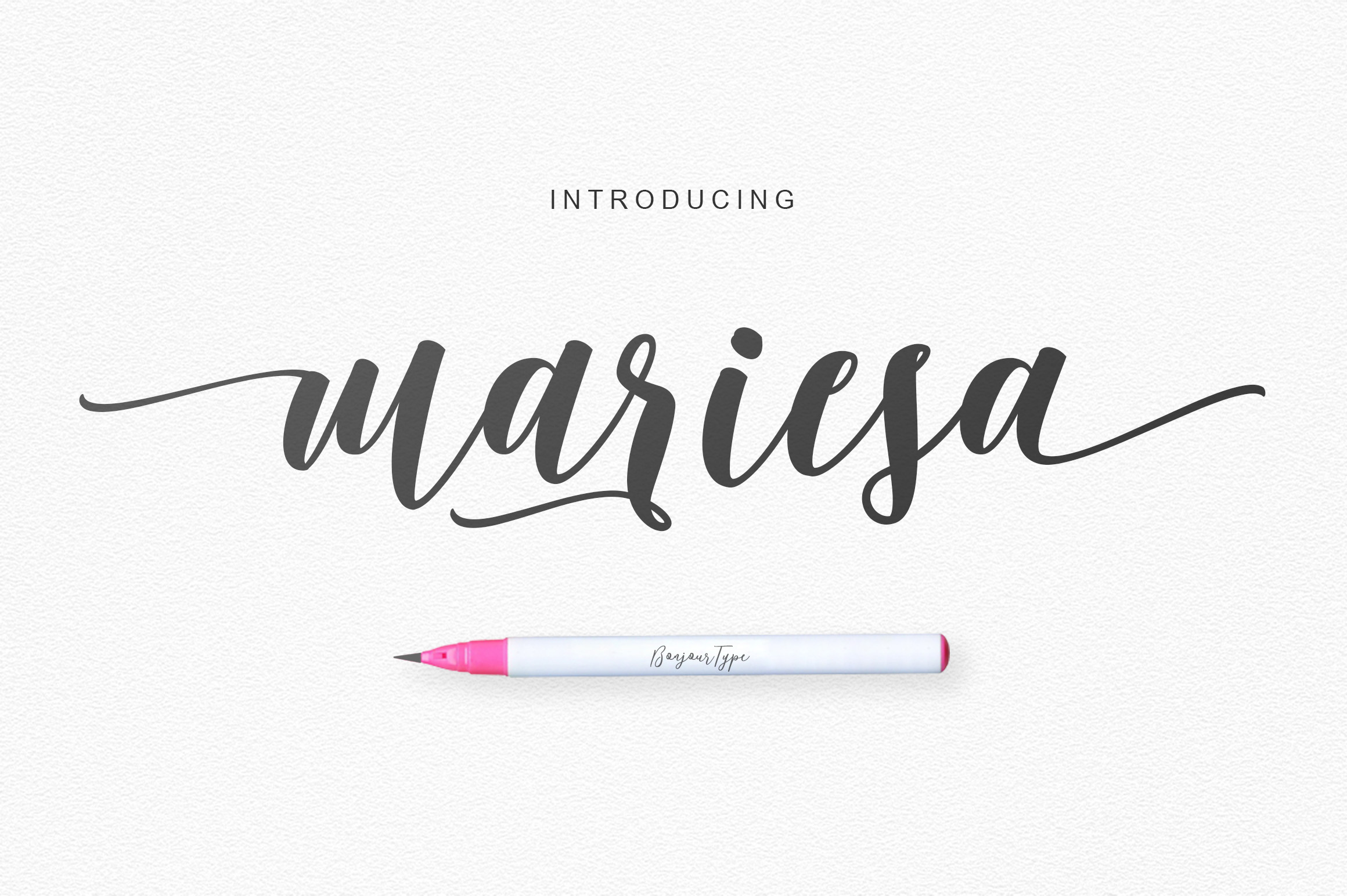
Mariesa Script Font
Mariesa Script Font is perfect for elegant wedding invitations, romantic greeting cards, luxury fashion branding, sophisticated beauty campaigns, refined stationery design, upscale boutique signage, graceful packaging labels, intimate event materials, and feminine lifestyle marketing.
What makes Mariesa Script Font exciting is its enchanting feminine elegance that captures the grace and sophistication of handwritten calligraphy through flowing, romantic letterforms that seem to dance across the page. The font features delicate connecting strokes with gentle curves that create an atmosphere of refined beauty and intimate charm, evoking the personal touch of carefully crafted handwriting. Its graceful character and romantic appeal make it perfect for brands that want to communicate femininity, elegance, and the timeless beauty of personal expression while creating memorable experiences that celebrate life's most precious moments.
Mariesa Script Font family includes various elegant script weights such as Light, Regular, and Bold variations, often featuring romantic stylistic alternates and feminine decorative elements. The family may include delicate ligatures, graceful swashes, and elegant ornamental features that enhance the font's romantic aesthetic, providing designers with comprehensive options for creating sophisticated typographic compositions that honor the art of beautiful handwriting and feminine expression.